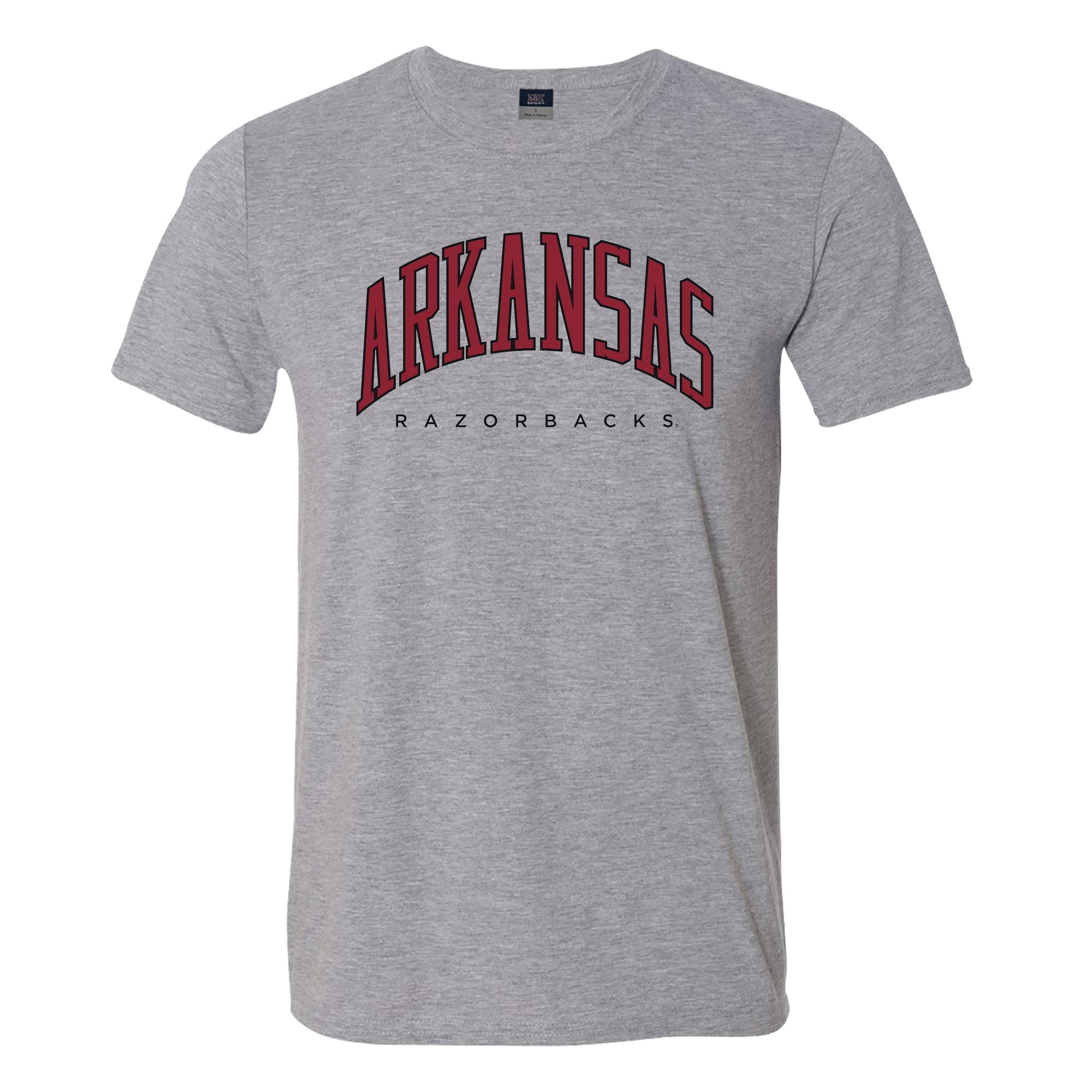
Arkansas Razorbacks Font
Arkansas Razorbacks Font - The arkansas razorbacks are the athletic teams that represent the. Directiononly strongly left to right glyphs. The razorback is the official spirit symbol of the university of arkansas athletic programs. Ncaa arkansas razorback 2014 by the sports fonts is a font based on the arkansas razorbacks logo. It is not to be used for academic or general promotional purposes. Directiononly strongly left to right glyphs. It is a free font.